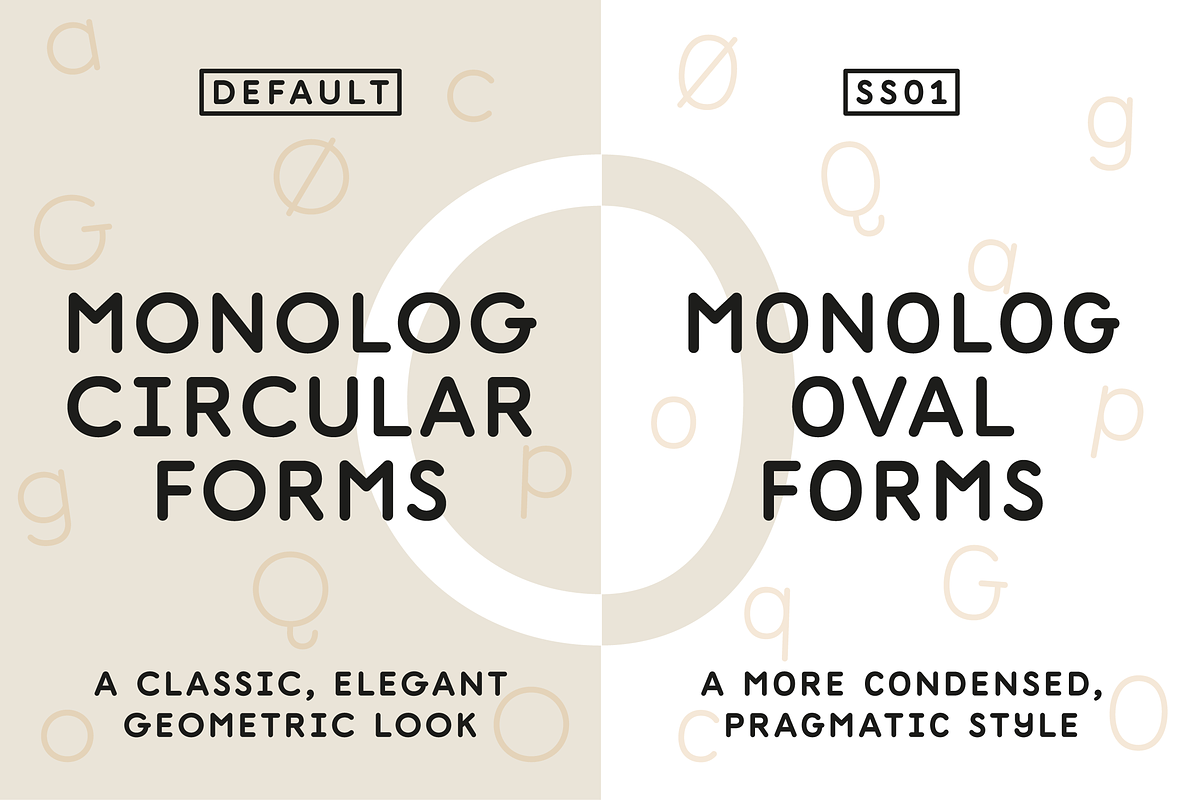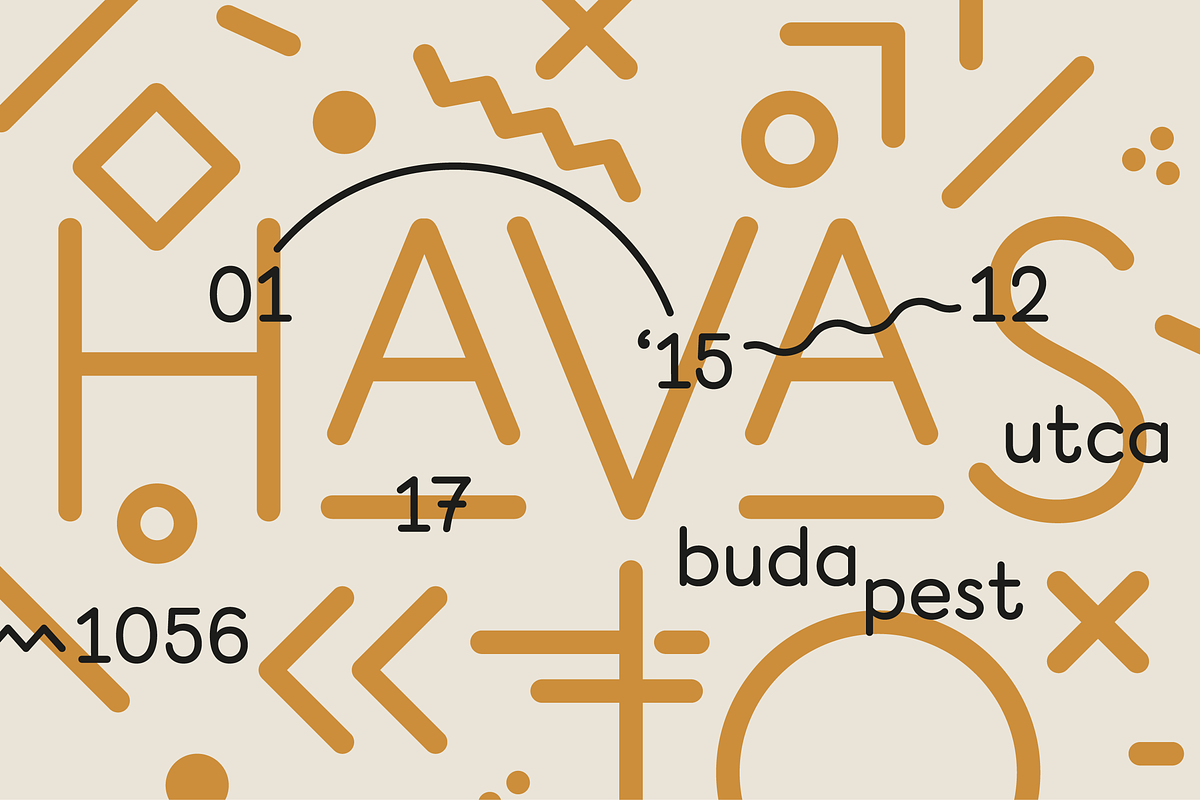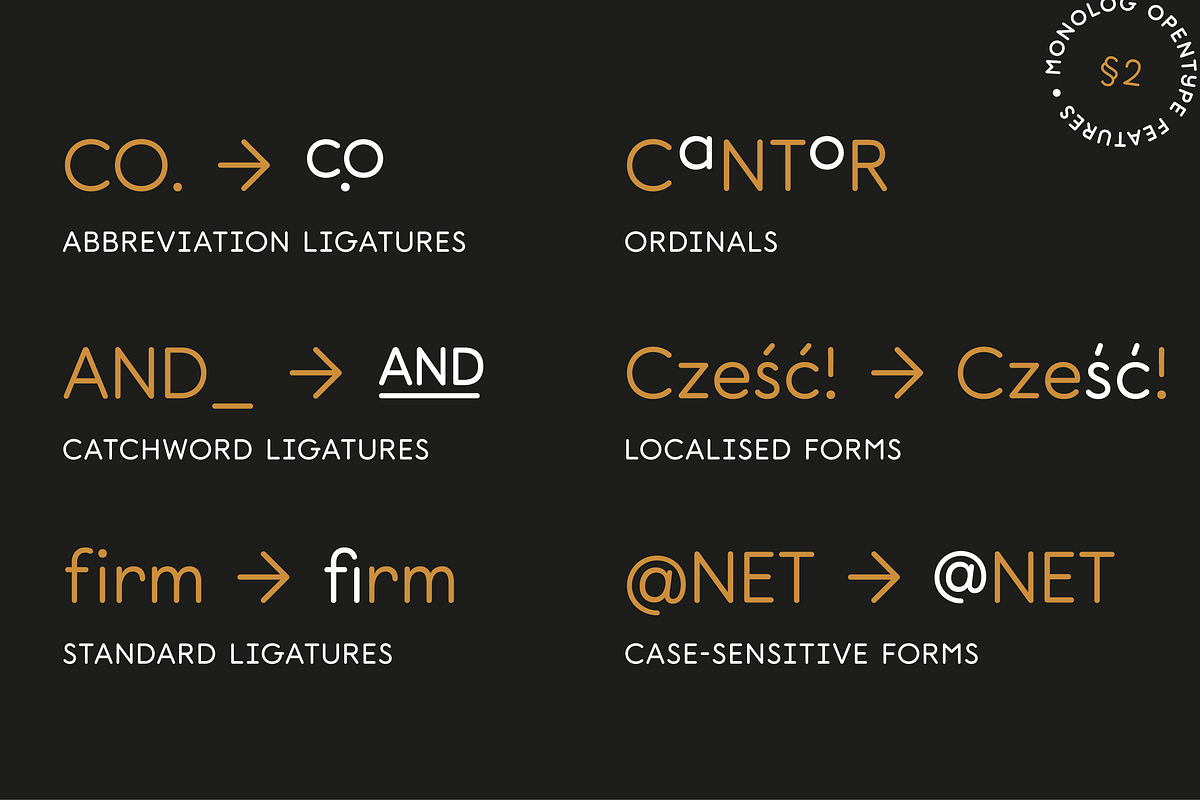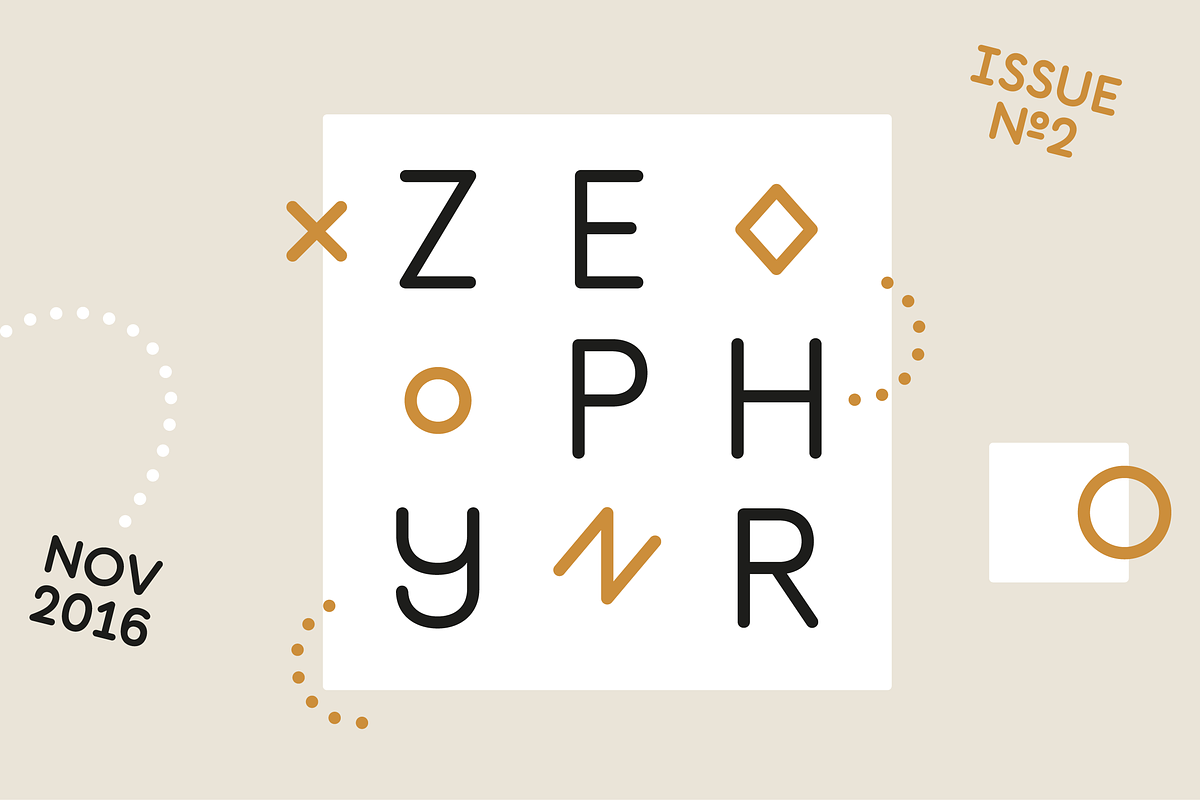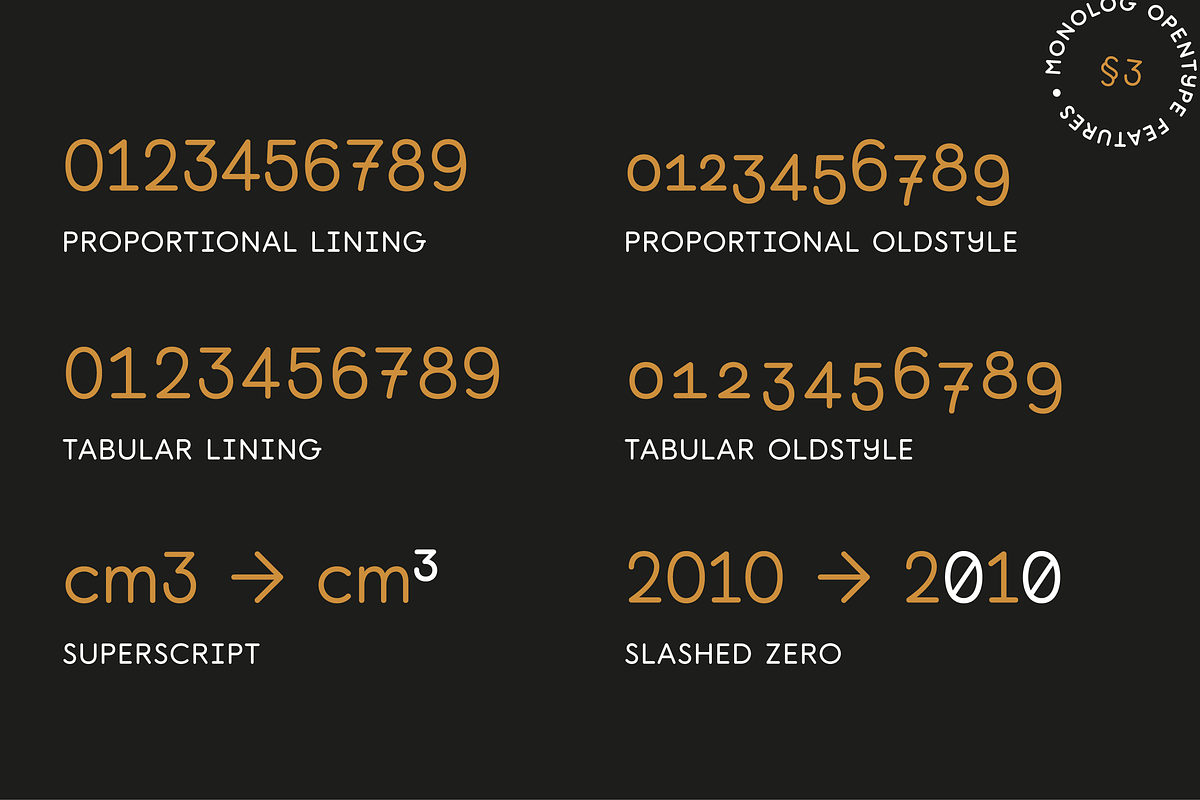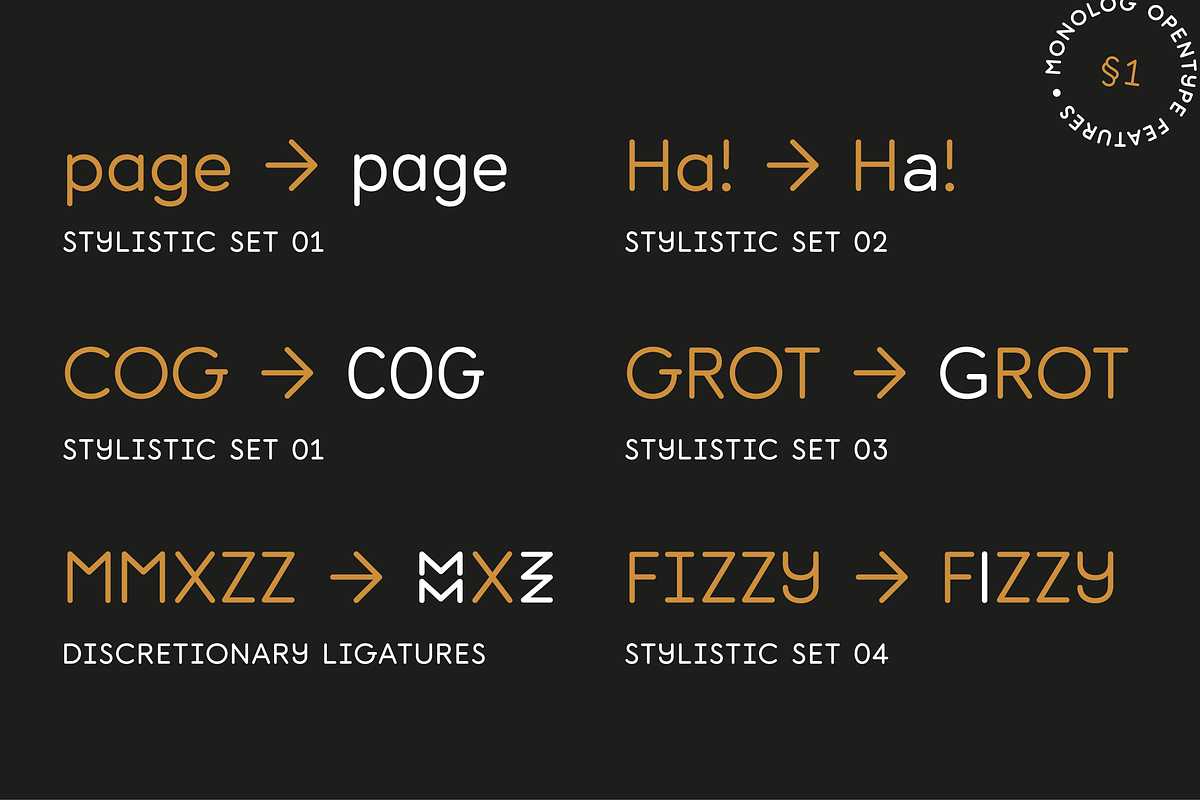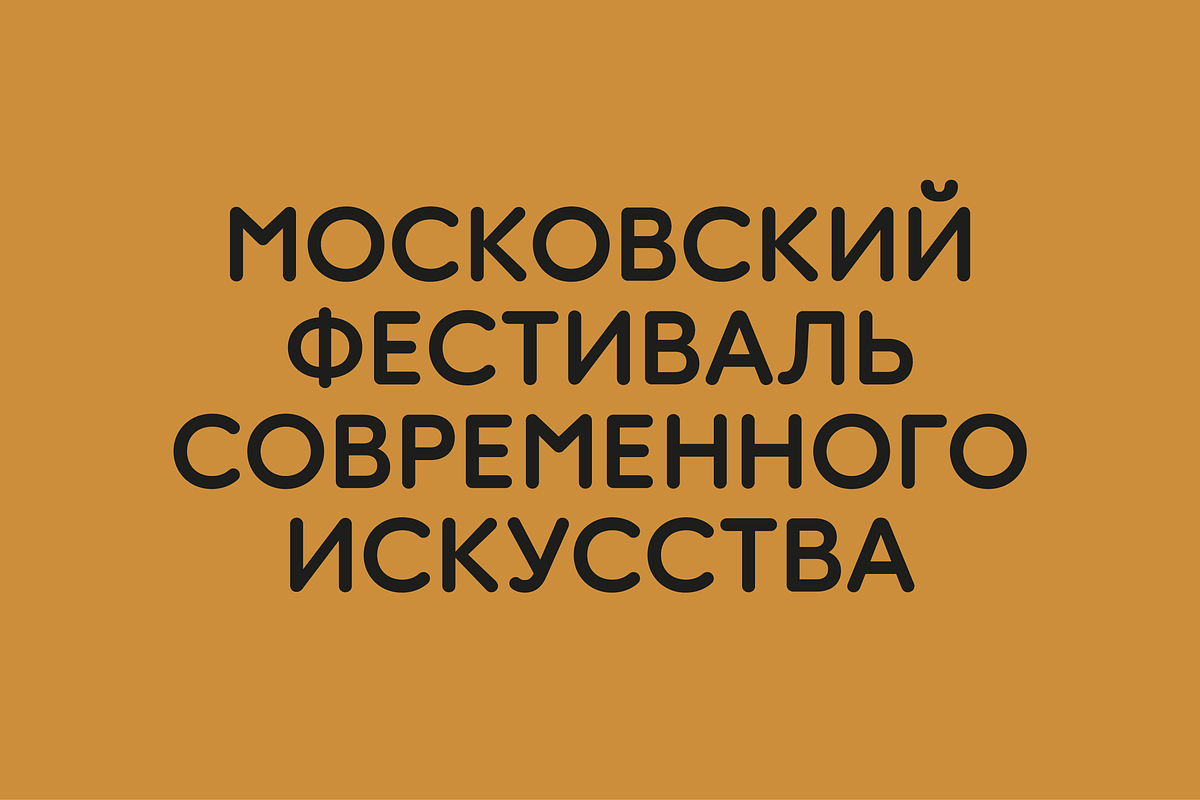
Monolog
Monolog is an especially monolinear rounded display typeface, designed to work great alongside monoline illustrations, logos and icons, while still performing well in some text settings.
A number of contemporary quirks in its construction establish visual interest, while Monolog’s clean, geometric forms allow it to remain extremely versatile, great for a wide range of applications and themes.
Some good uses would include branding and identity work, signage, packaging, web and app design; anywhere from a hip coffee shop to a contemporary arts gallery, a music festival or a craft microbrewery.
Stand-out features include double-stacked capital ligatures, abbreviation and catchwords ligatures, interesting capital forms, and alternates – including a stylistic set to swap the default circular forms for ovals to give Monolog a more condensed and pragmatic style. Monolog supports many Latin- and Cyrillic-based languages.